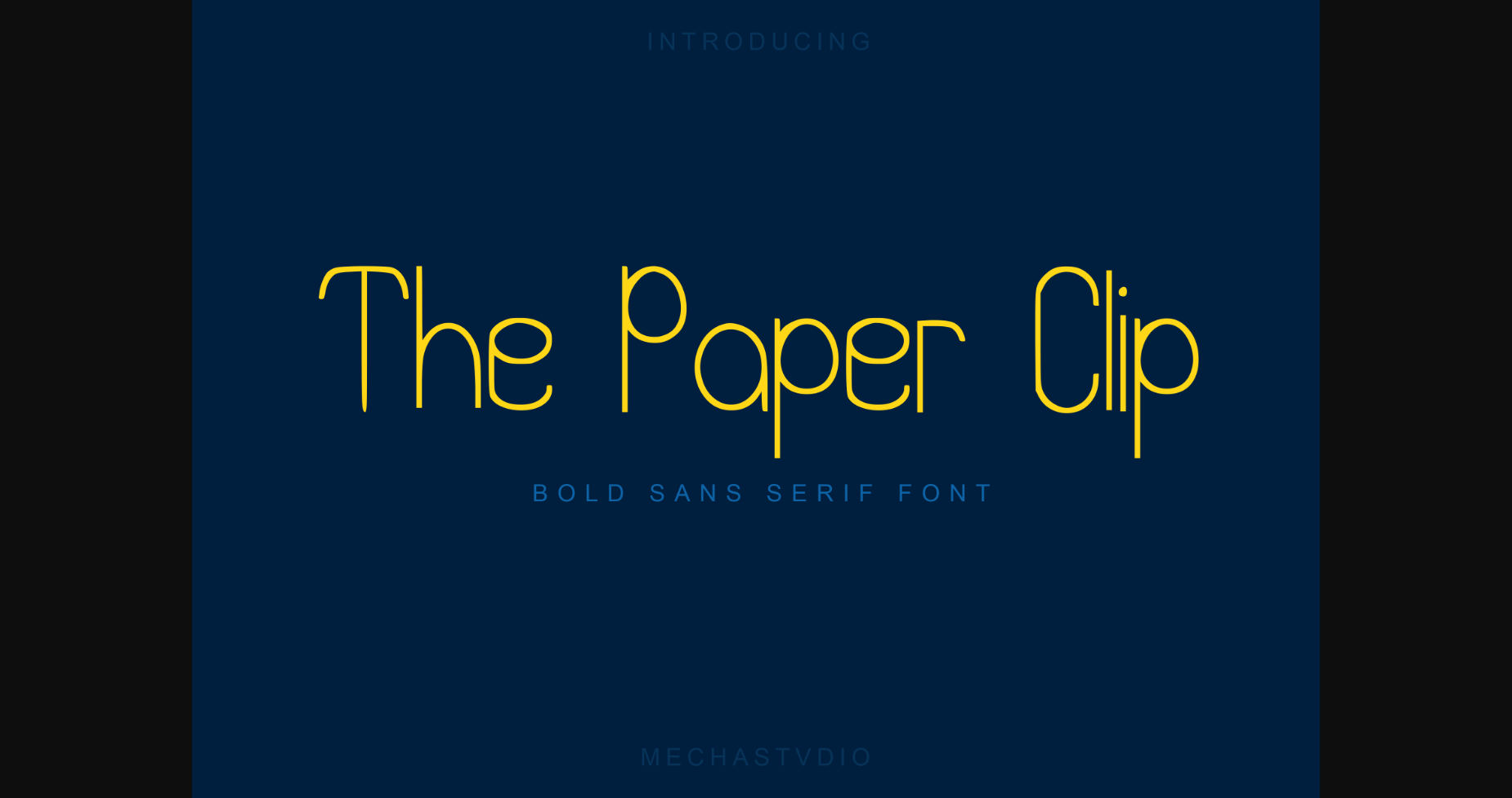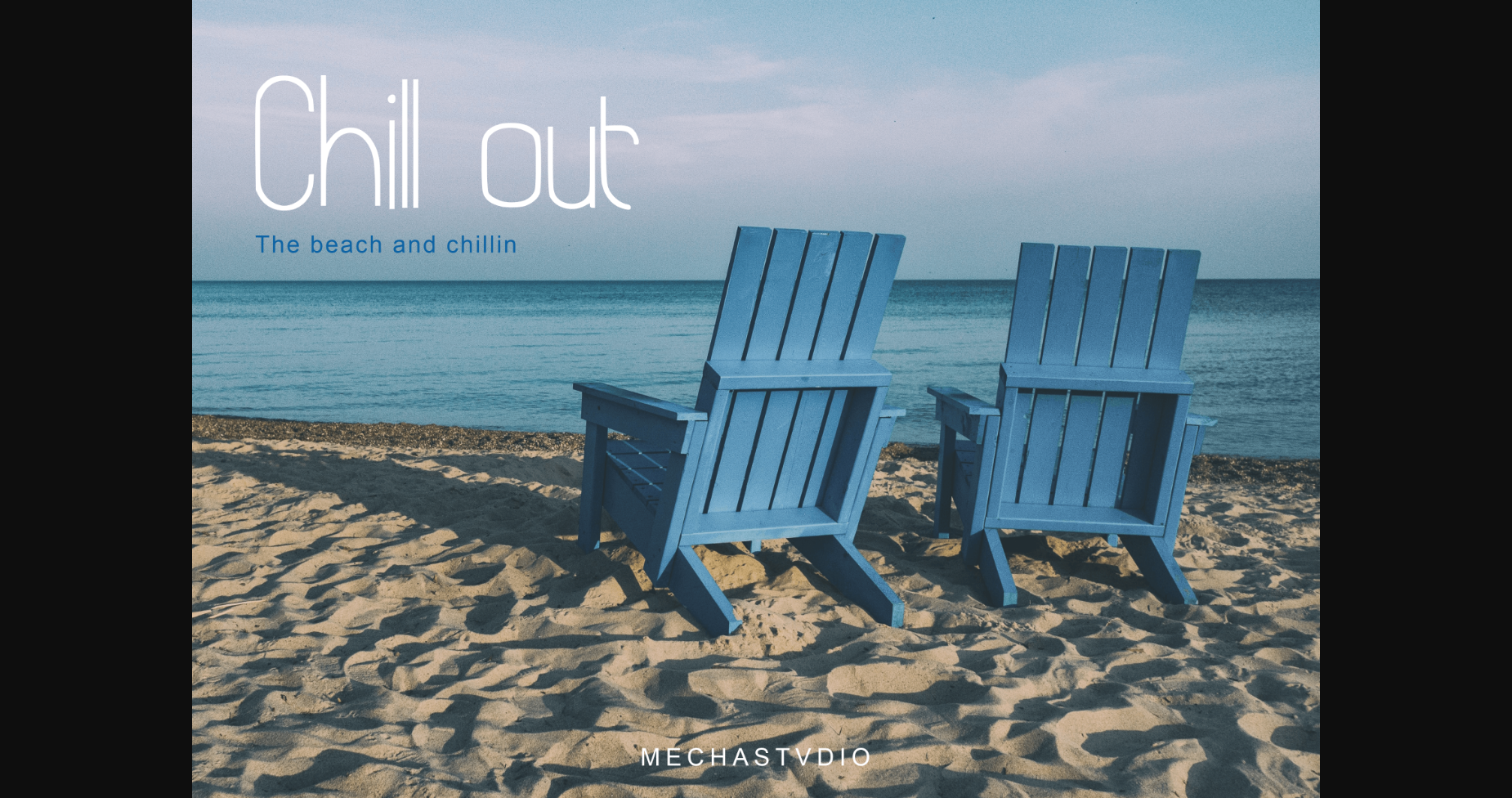
The Paper Clip Font
About The Paper Clip Font
The Paper Clip is a simple, unique, and minimalist sans serif display font. Its unique style is perfect for all your projects as it has the potential to transform them into a true standout.